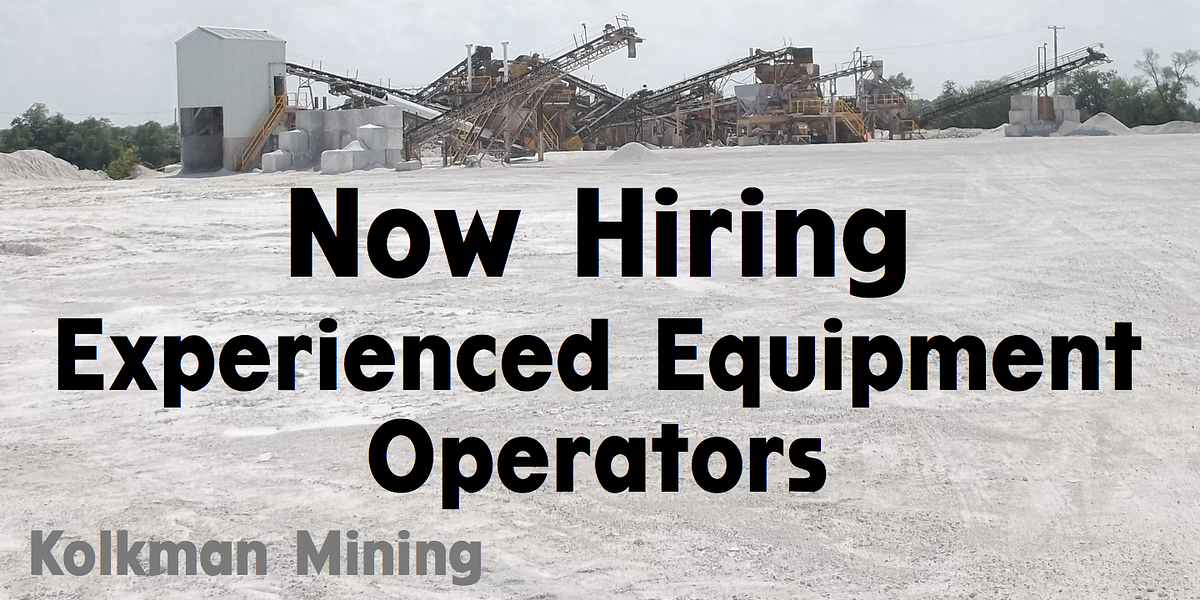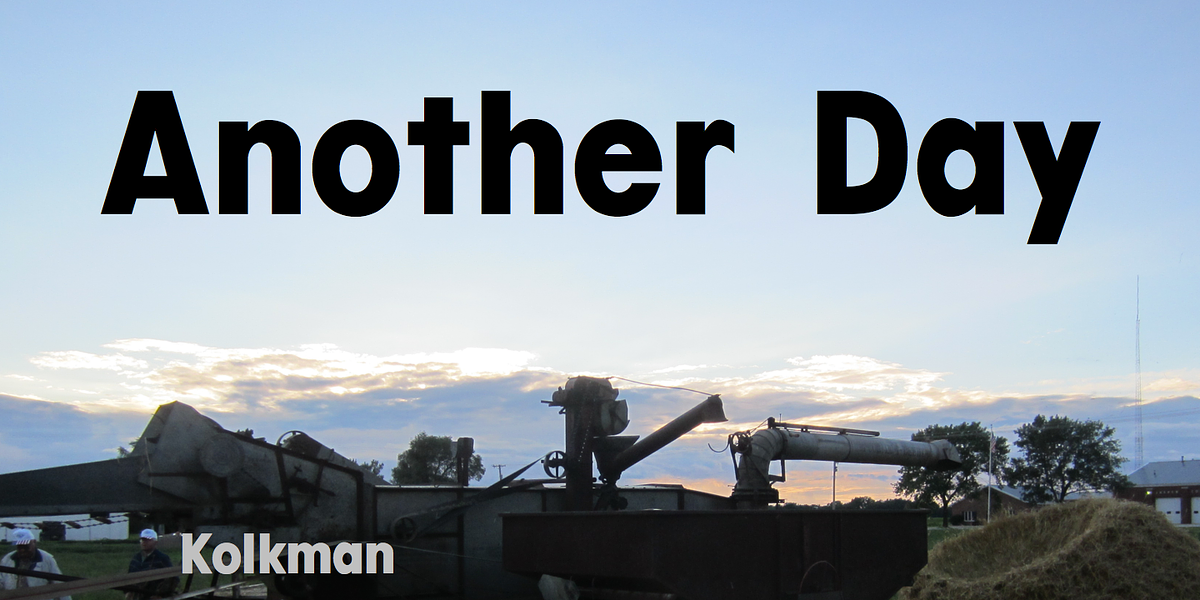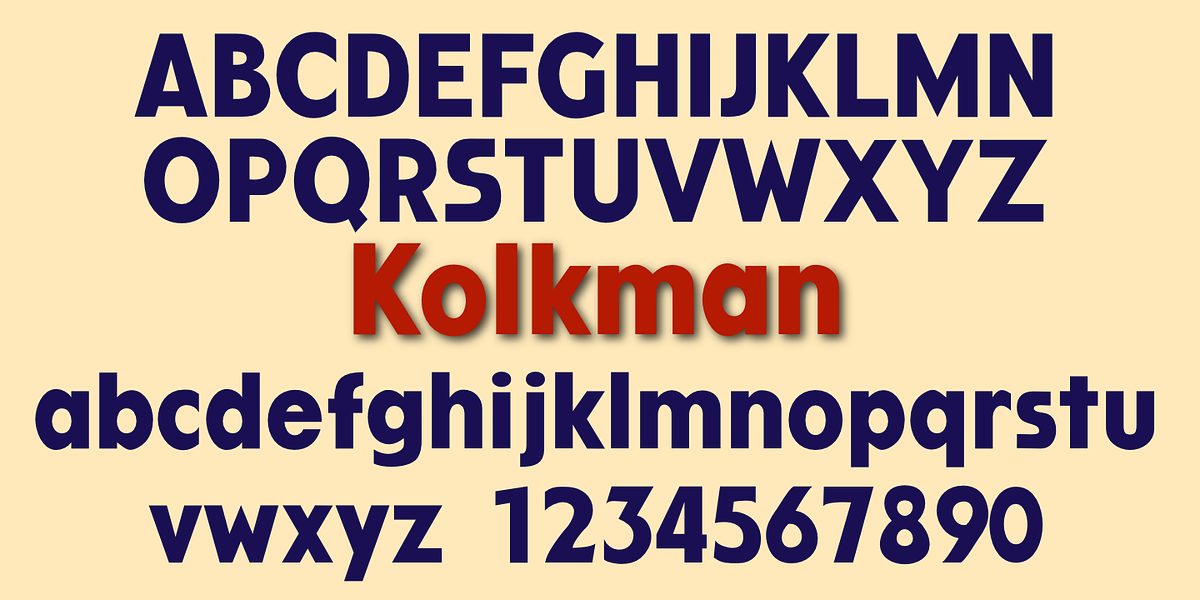
Kolkman
Kolkman is a bold sans-serif typeface characterized by its geometric construction. Its nondescript nature makes it versatile for various display applications such as headlines and signage.